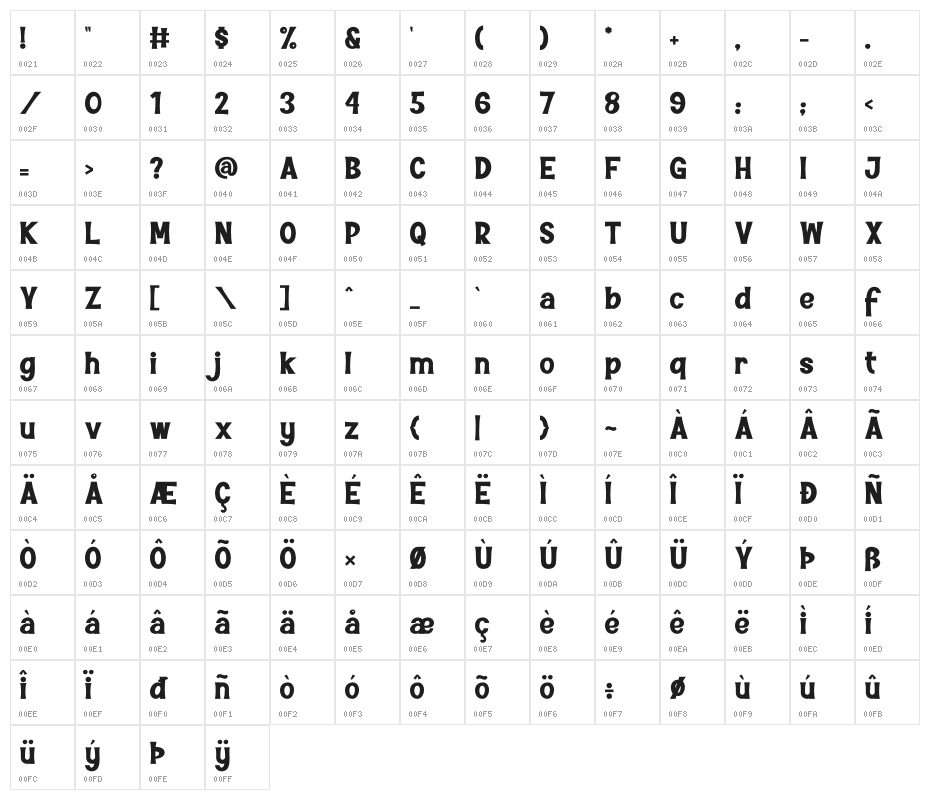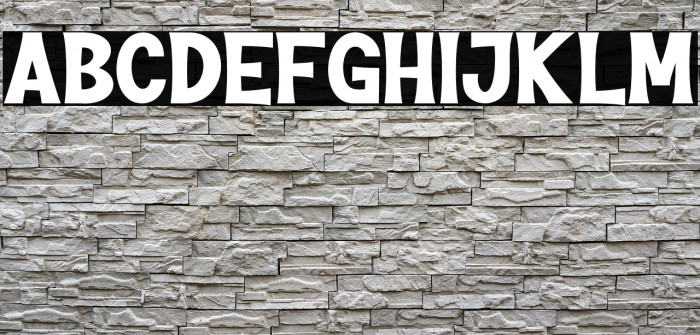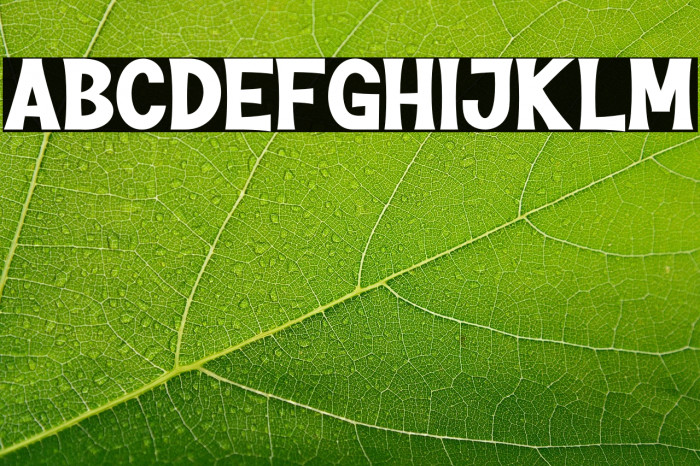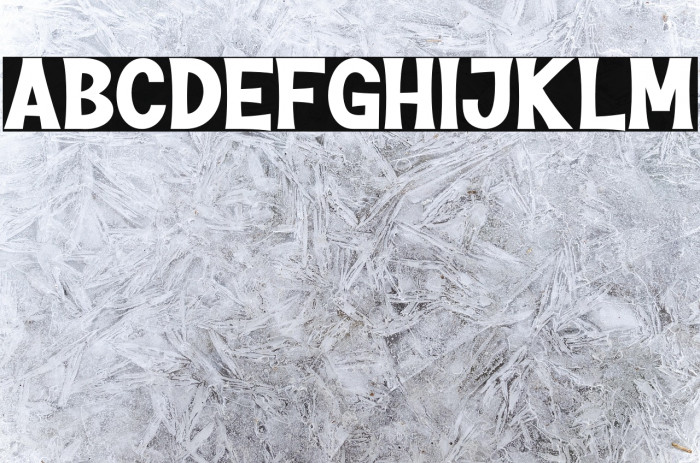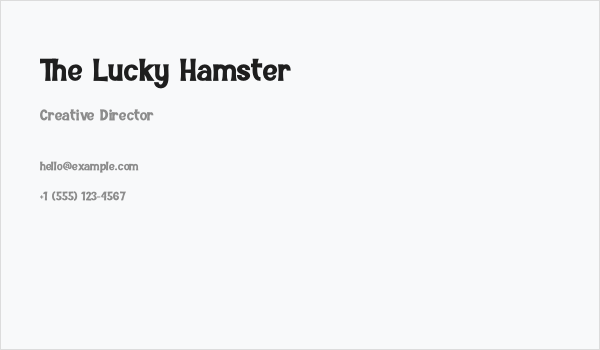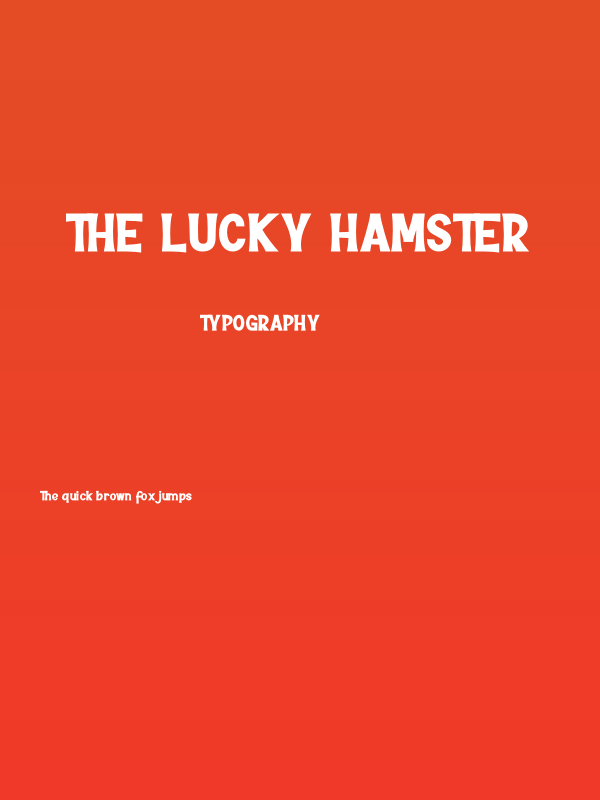
The Lucky Hamster Font
The Lucky Hamster Description
This font features a playful and bold design, characterized by its thick strokes and slightly irregular shapes. The uppercase and lowercase letters have a whimsical quality, with exaggerated curves and varying line thickness that add a sense of movement and energy. The numbers and special characters maintain this lively style, making the font suitable for creative and informal applications. Its unique appearance makes it stand out, ideal for projects that require a touch of fun and personality.
| Proposed Projects | Ideal for children's books, playful branding, posters, and creative invitations. |